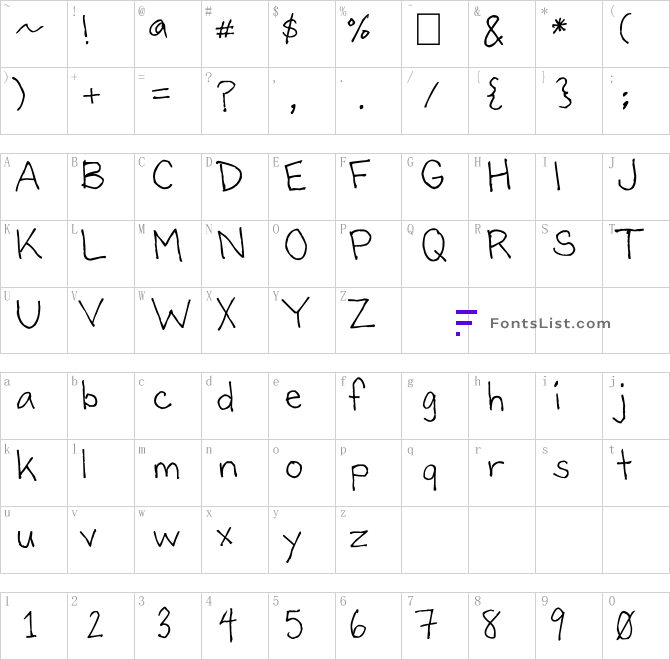
- Font Name:Bartley
Bartley.ttf is a very beautiful artistic font, Bartley.ttf is widely used in the design and printing of various books and pictures,Bartley.ttf has a strong visual impact,Bartley.ttf is a commonly used font in newspapers, magazines and books, and is used in posters, e-commerce Poster design, store design, logo design, font design and other fields.Bartley.